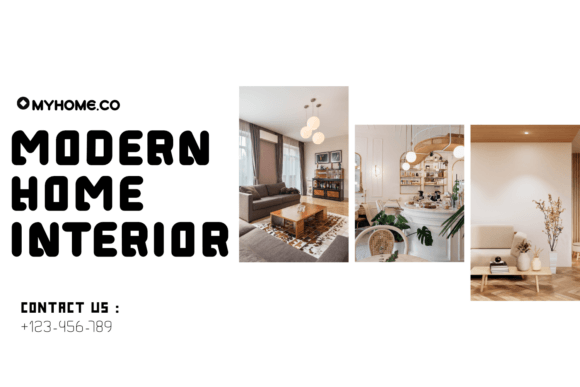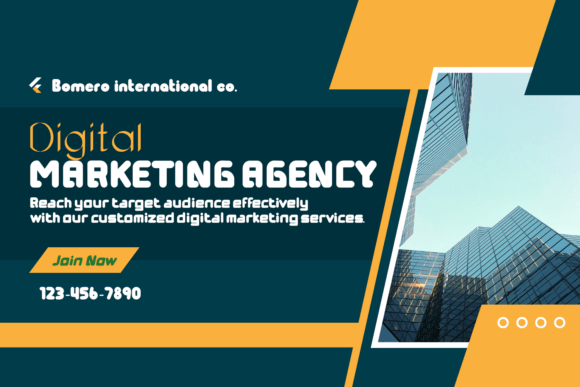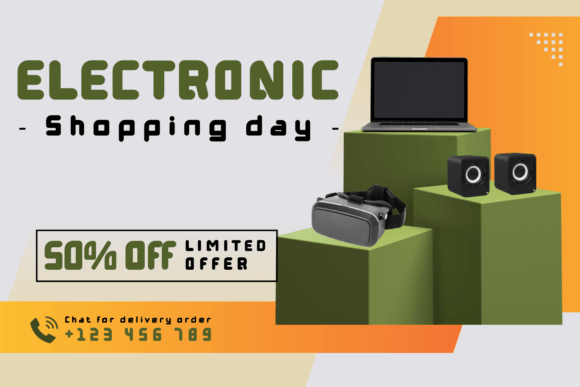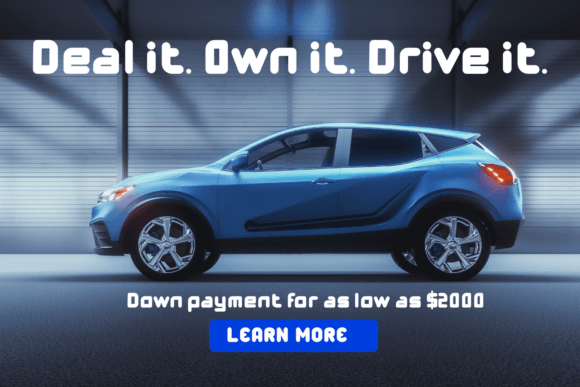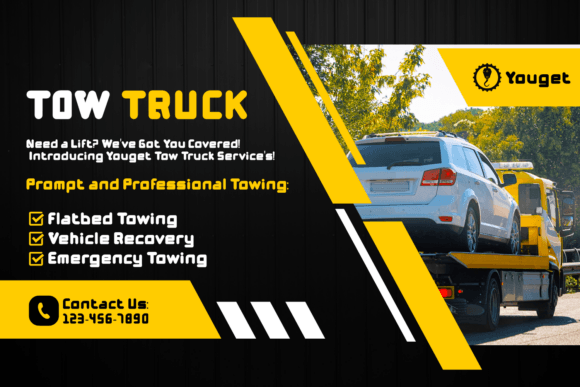
Introduction to Murisa Masterton Font Font
Fonts play a crucial role in design, and the Murisa Masterton Font font is a typeface that brings both character and versatility to any project. Whether you’re working on a branding project, a website, or a print design, the Murisa Masterton Font font offers a unique style that can elevate your work.
This font is very unique because it has a different shape from the others, this adds interesting characteristics to the user.
This font also has better kerning, and of course, wider support for users in Eastern Europe has also been provided Use this font for your logo and promotions and get bigger profits.
Key Features of Murisa Masterton Font Font
Why Choose Murisa Masterton Font Font?
The Murisa Masterton Font font is more than just a typeface – it’s a design tool that helps you communicate your message with style and clarity. Its unique character set and versatile design make it suitable for a wide range of applications, from elegant invitations to bold headlines.
With its carefully crafted letterforms and balanced proportions, the Murisa Masterton Font font ensures readability and visual appeal across all mediums.
What makes Murisa Masterton Font font special?
The Murisa Masterton Font font stands out with its unique design, exceptional readability, and versatility across various design applications.